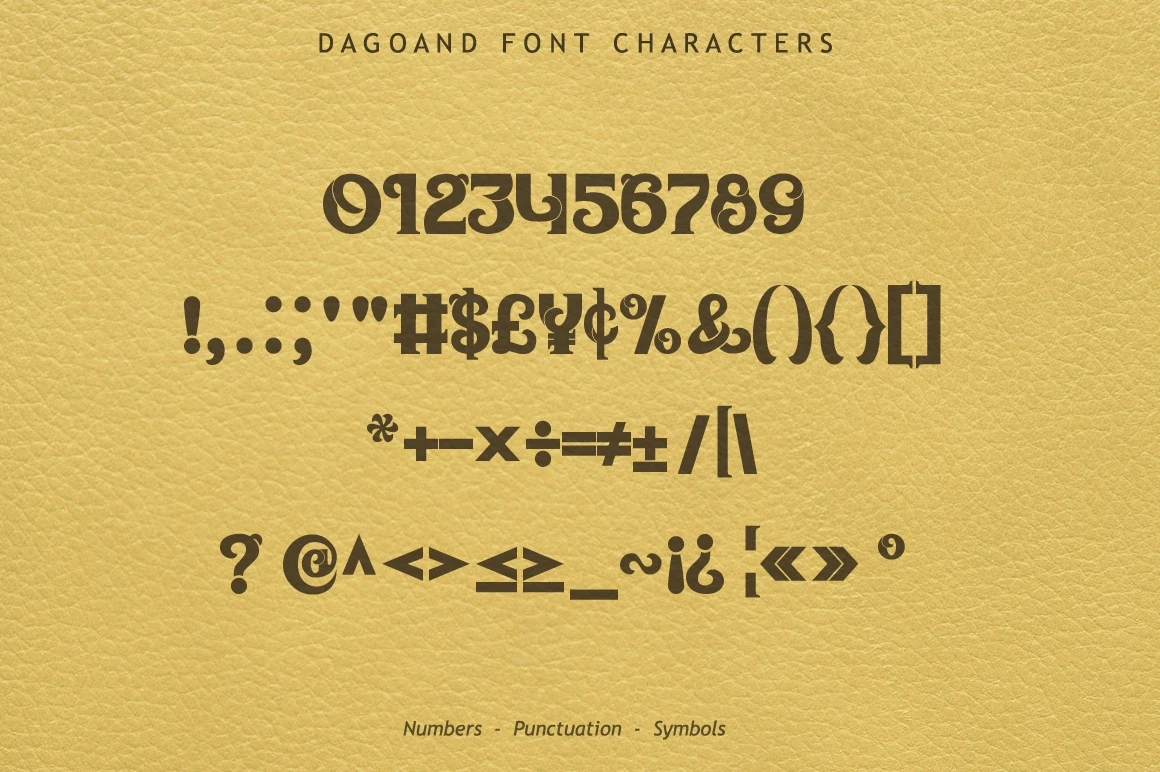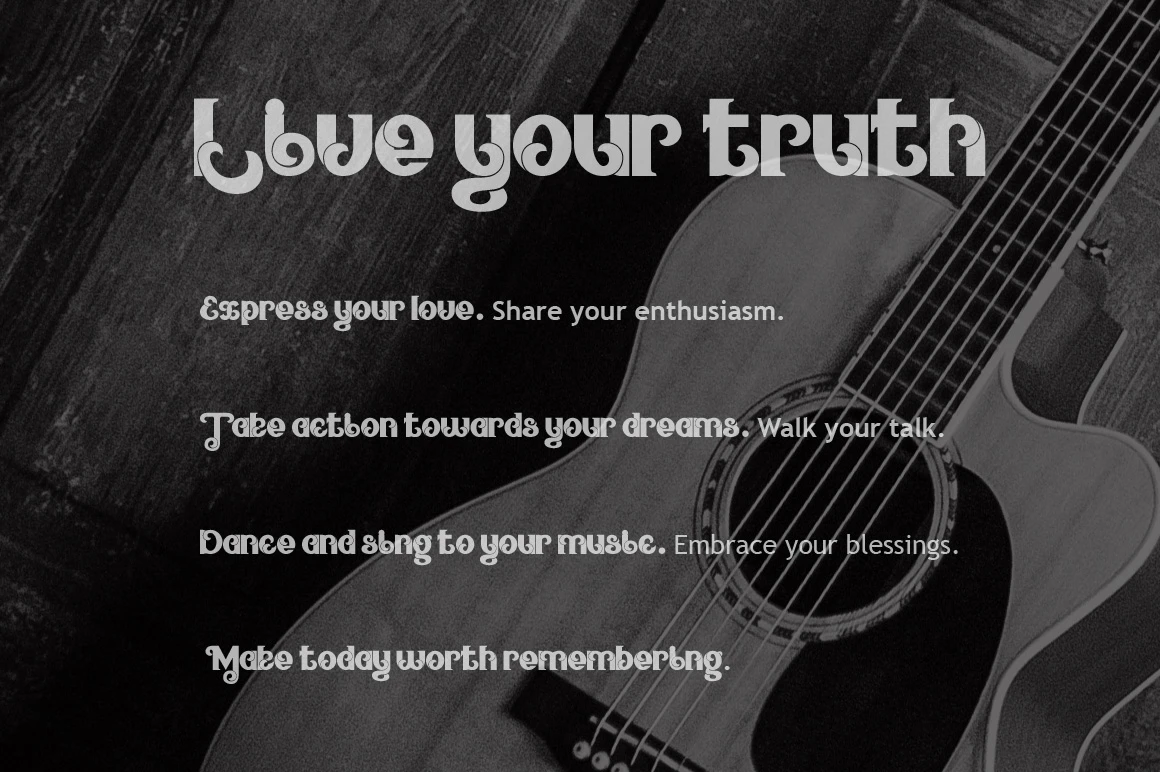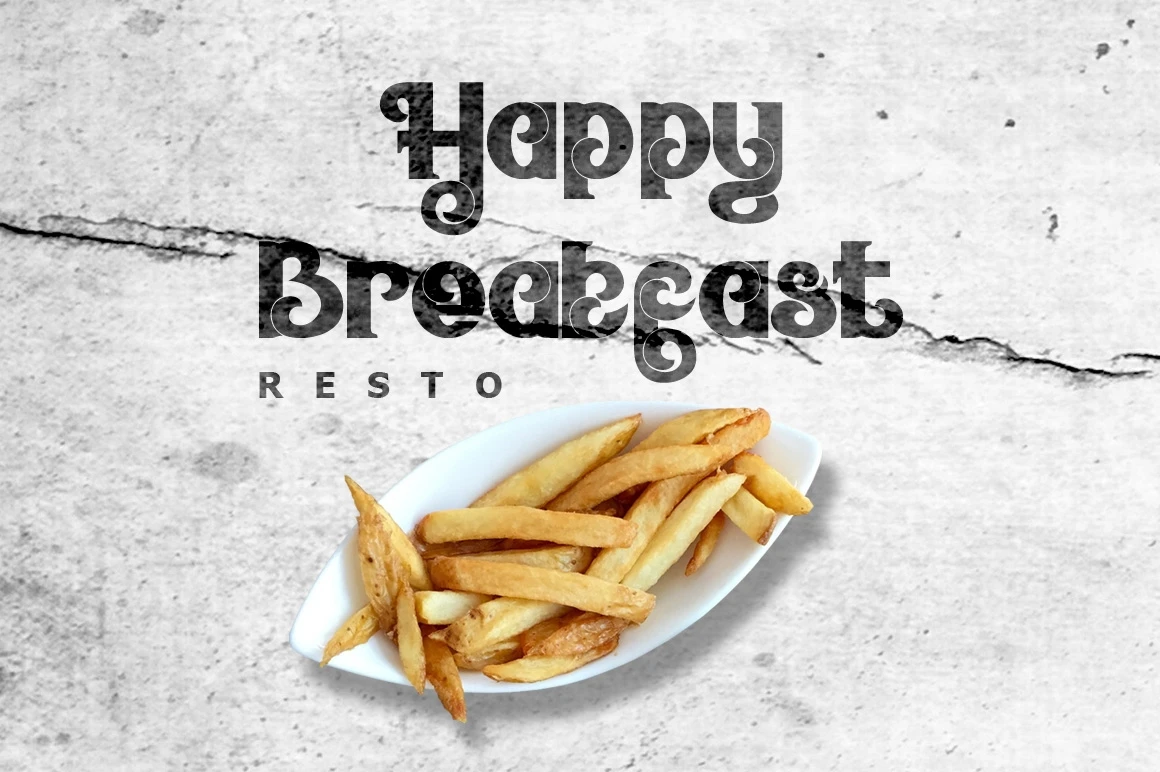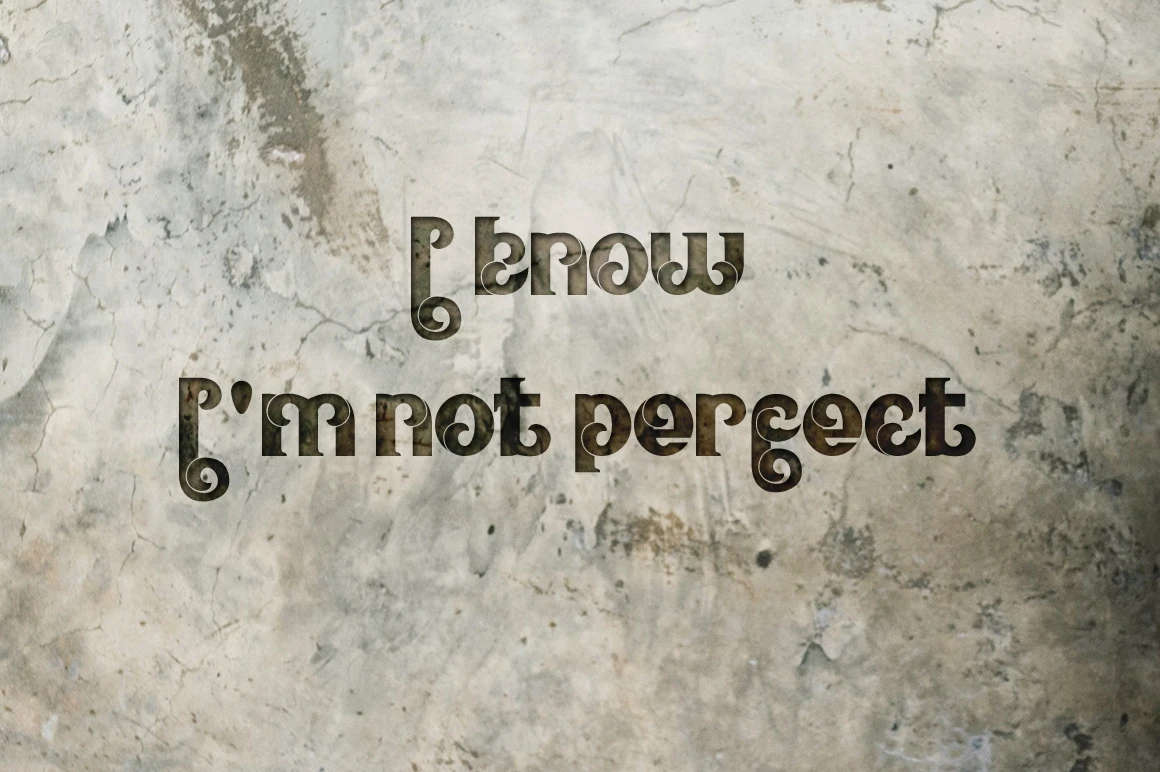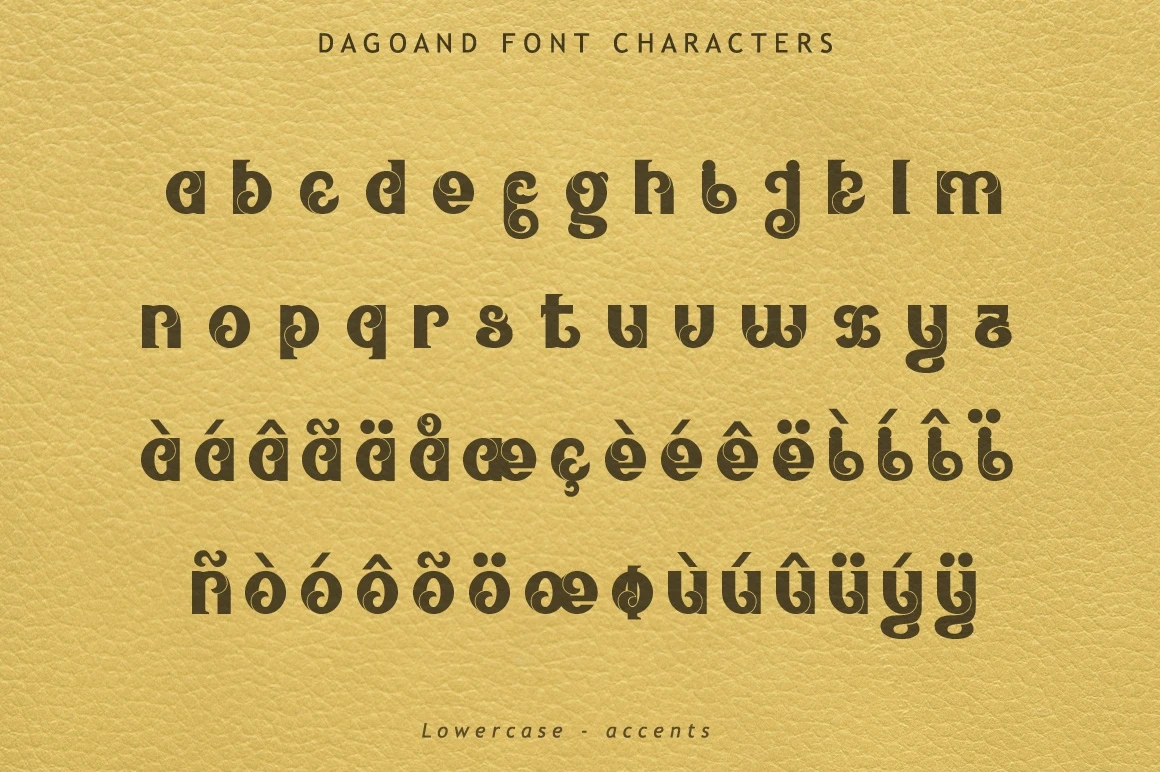
Dagoand is a unique font with natural and carving ornament style.
Great for your food themed designs, logo, headline, letterheads, etc.
- Uppercase A-Z
- Lowercase a-z
- Numbers 0-9
- Accents
- Punctuation
- Multilingual support